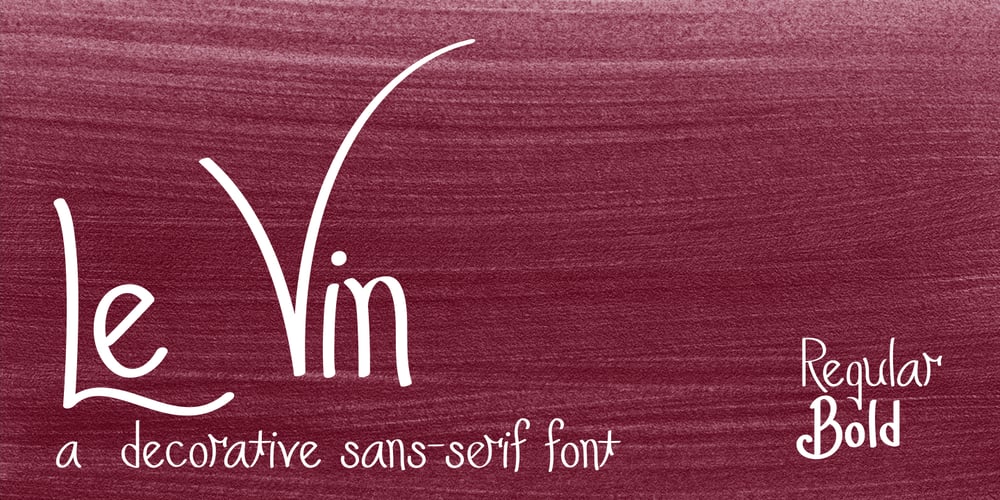
Le Vin
Le Vin font
Le Vin Font Family was designed by Kellina James and published by Kellina James Designs. Le Vin contains 2 styles and family package options. Le Vin is a calligraphy inspired font that was has a playful elegant design. It includes upper and lowercase letters, numerals, punctuation, and multilingual support. In addition, there are also special characters, alternates, and ligatures to add more flair to your projects. Great for invitations, headers, packaging, branding, wall art, and more.